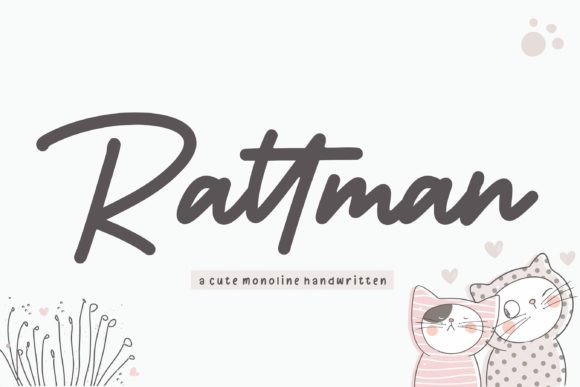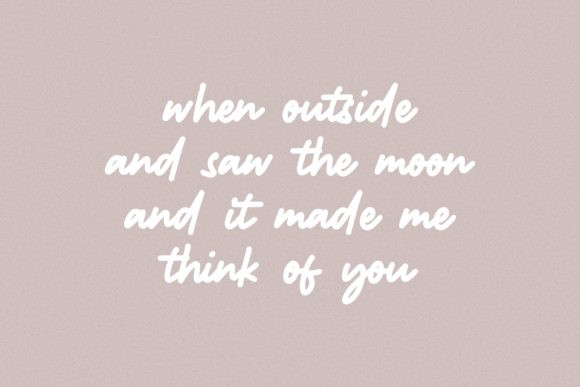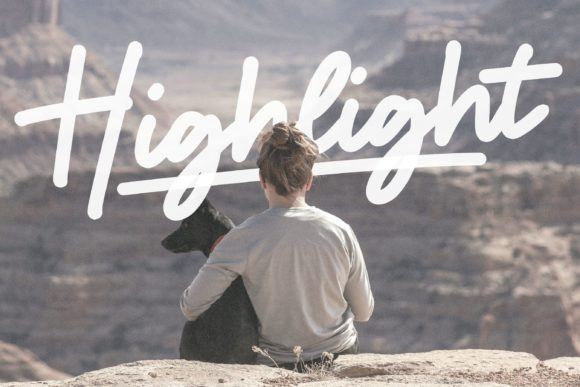
Rattman Font
Rattman is a flowing handwritten font, described by an elegant touch, perfect for your favorite projects. Fall in love with its incredibly distinct and timeless style and use it to create spectacular designs!